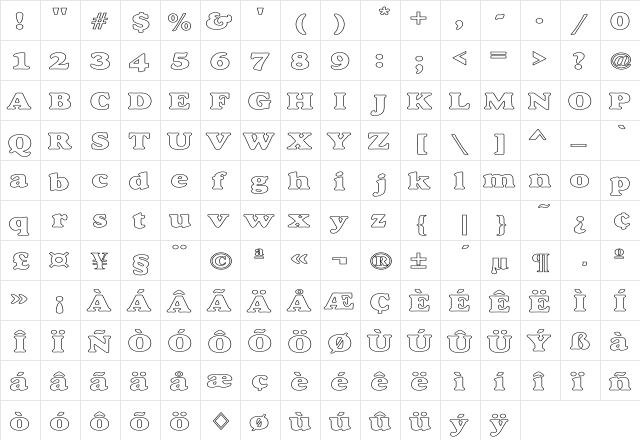
Alexuss Heavy Hollow Wide Regular
Design Context for Alexuss Heavy Hollow Wide Typeface
Alexuss Heavy Hollow Wide offers clean, dependable letterforms without strong stylistic allegiance, making it a practical choice for designers who need flexibility.